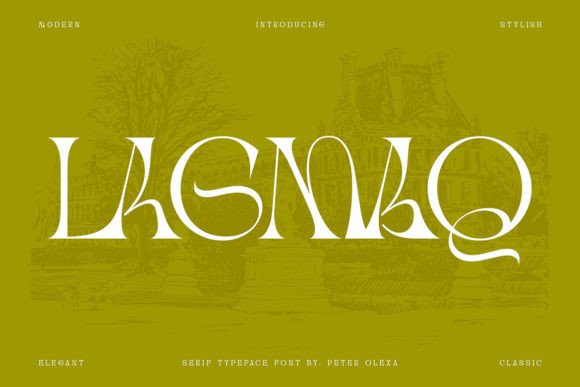
Journey into the realm of typographic excellence with Lagmaq Font, a masterpiece crafted by the visionary designers at JumboDesign. This captivating serif typeface exudes elegance, sophistication, and timeless charm, with its distinctive serifs adding a touch of character and personality to any design project.
Unleash the boundless possibilities of Lagmaq Font, a versatile and captivating typeface that lends itself seamlessly to a myriad of creative expressions. Its clean lines and contemporary style ensure effortless readability, while its PUA encoding grants you access to a treasure trove of delightful glyphs and swashes, empowering you to add intricate details and flourishes to your designs.
Picture your brand adorned with the sophistication of Lagmaq Font, leaving an indelible impression on your audience. Its timeless beauty and adaptability make it an ideal choice for branding, editorial design, and any project that demands a stylish and modern serif font.
With Lagmaq Font as your creative companion, embark on a typographic adventure where elegance meets versatility. Its strong and distinctive serifs will add a touch of character to your headings, while its clean lines and contemporary style will ensure readability across all platforms.
Discover the endless creative possibilities that await you with Lagmaq Font. Let your imagination soar and watch as your designs transform into captivating works of art. Elevate your designs to new heights with Lagmaq Font, the perfect fusion of style, functionality, and boundless creativity.